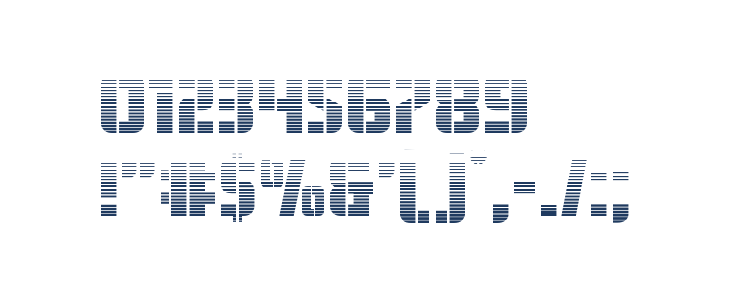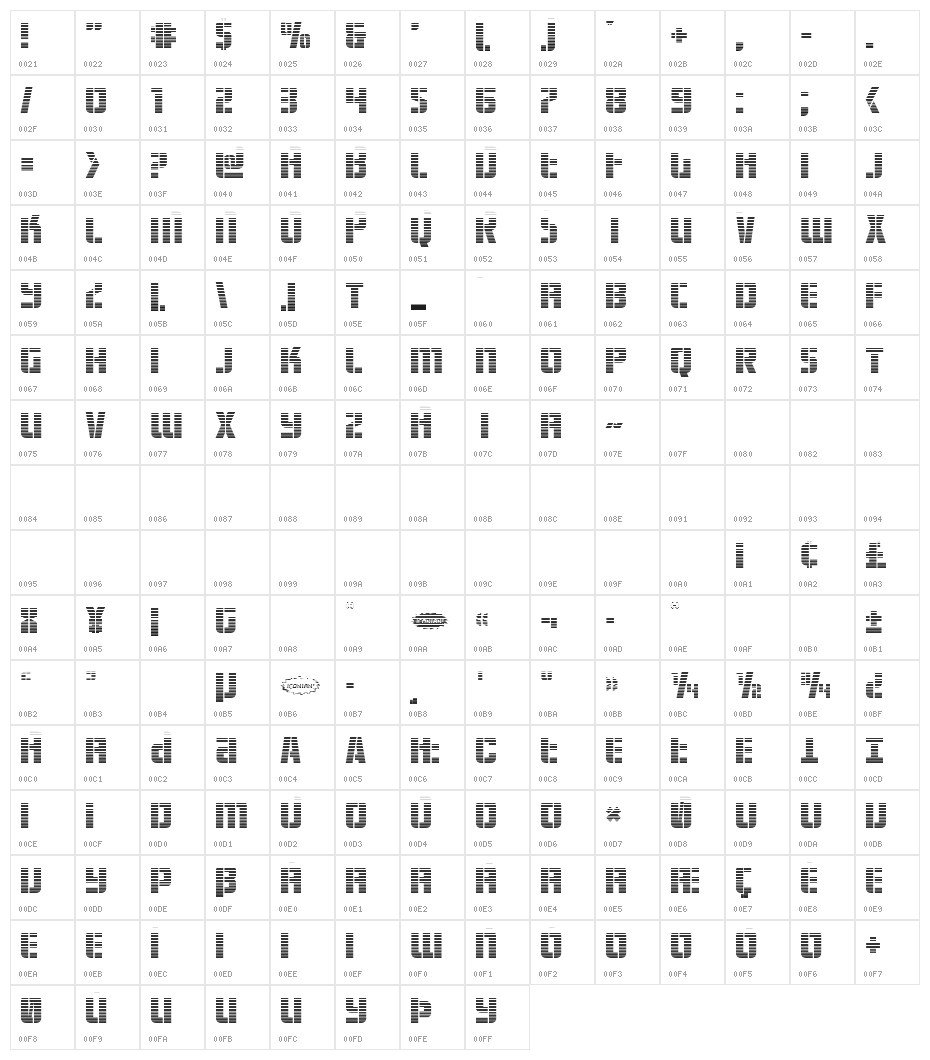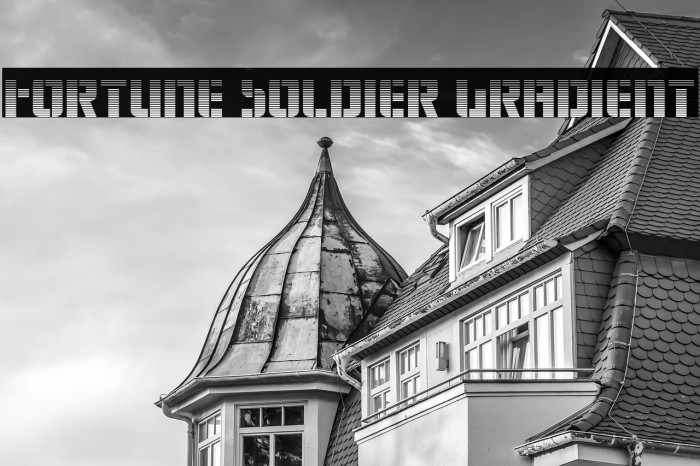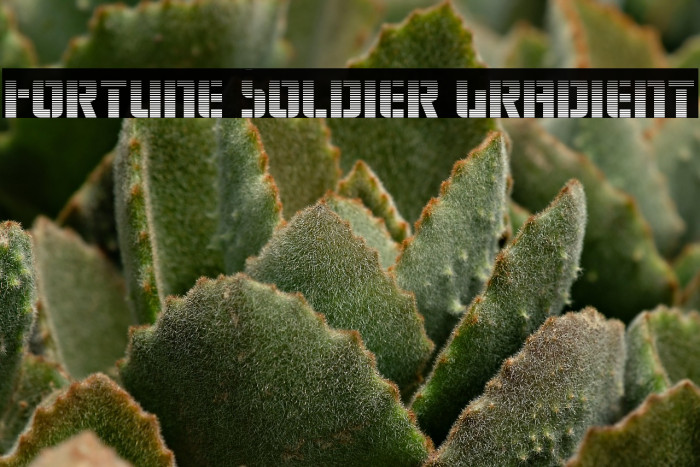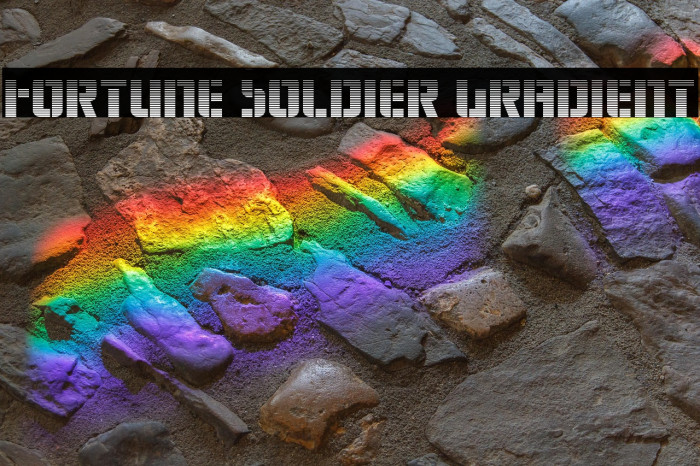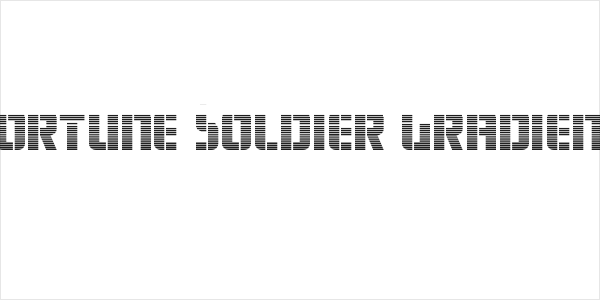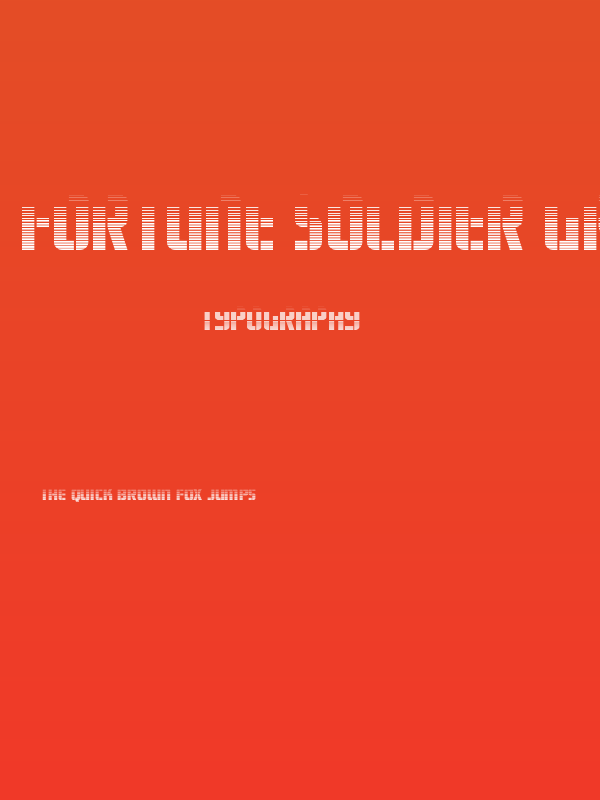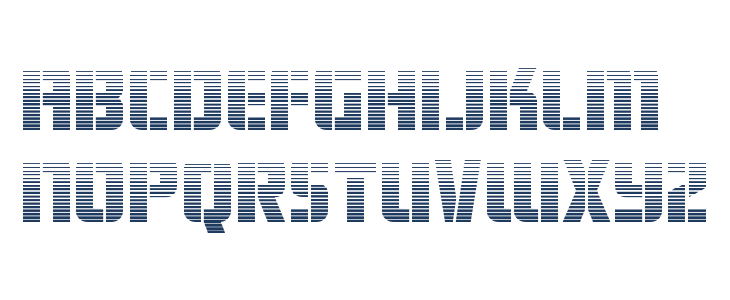
Fortune Soldier Gradient Font
Fortune Soldier Gradient Description
This font features a bold, modern design with a distinctive gradient effect that gives each character a striped appearance. The uppercase and lowercase letters are designed with a consistent width, creating a uniform look across the text. The numbers and special characters maintain the same stylistic approach, ensuring a cohesive visual experience. The font's unique style makes it stand out, with a strong emphasis on horizontal lines that create a sense of movement and energy. This design is perfect for projects that require a bold and eye-catching typeface.